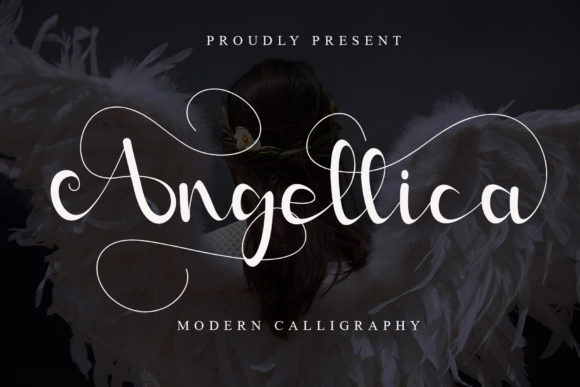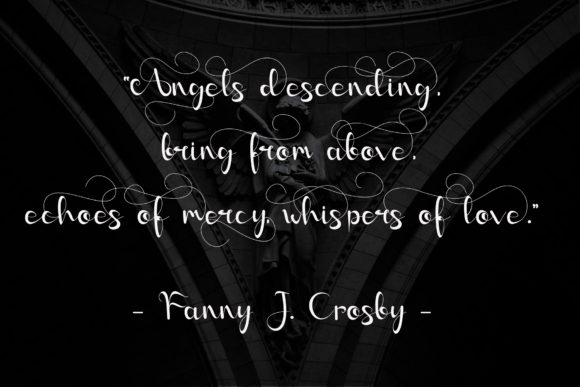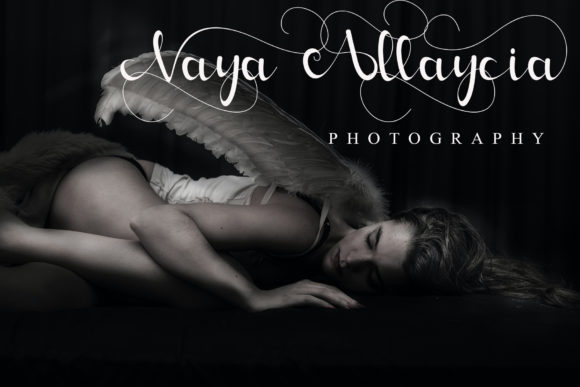
About Angellica Font
Angellica is a whimsical script font with a relaxed theme, featuring a lovely style. No matter the topic, this font will be an incredibly asset to your fonts’ library, as it has the potential to elevate any creation. This font is PUA encoded which means you can access all of the glyphs and swashes with ease!